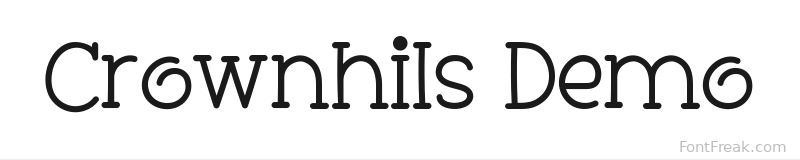
Crownhils Demo
Crownhils Demo, designed by Noah Type, is a captivating decorative font that brings a unique flair to various design projects. This font exhibits a playful yet elegant style, characterized by its smooth curves and whimsical elements. The stroke weight is consistent, providing a balanced visual appeal, while the moderate contrast adds depth to each letterform. The spacing is thoughtfully designed, ensuring legibility and flow, making it suitable for a range of applications.
Ideal for wedding invitations, Crownhils Demo adds a charming touch to any romantic theme. Its delightful curves can enhance movie posters, drawing attention and creating an inviting atmosphere. Small business owners will find it perfect for restaurant menus, where its decorative style can accentuate the culinary experience. Additionally, content creators can utilize this font in social media graphics, where its distinctive look captures audience interest and engagement.
The target audience for Crownhils Demo includes graphic designers seeking to add a whimsical element to their projects, small business owners looking for an eye-catching typeface, and content creators aiming to enhance their visual storytelling. With its free license, this font becomes an accessible choice for anyone looking to elevate their design work without breaking the bank.
What sets Crownhils Demo apart is its ability to blend fun with sophistication, making it a versatile choice for various creative endeavors. The combination of its decorative elements and legibility ensures that it stands out in any context. Whether you're crafting invitations, promotional materials, or digital content, the Crownhils Demo font free download is a fantastic addition to any designer's toolkit, promising to elevate your projects with its unique character.